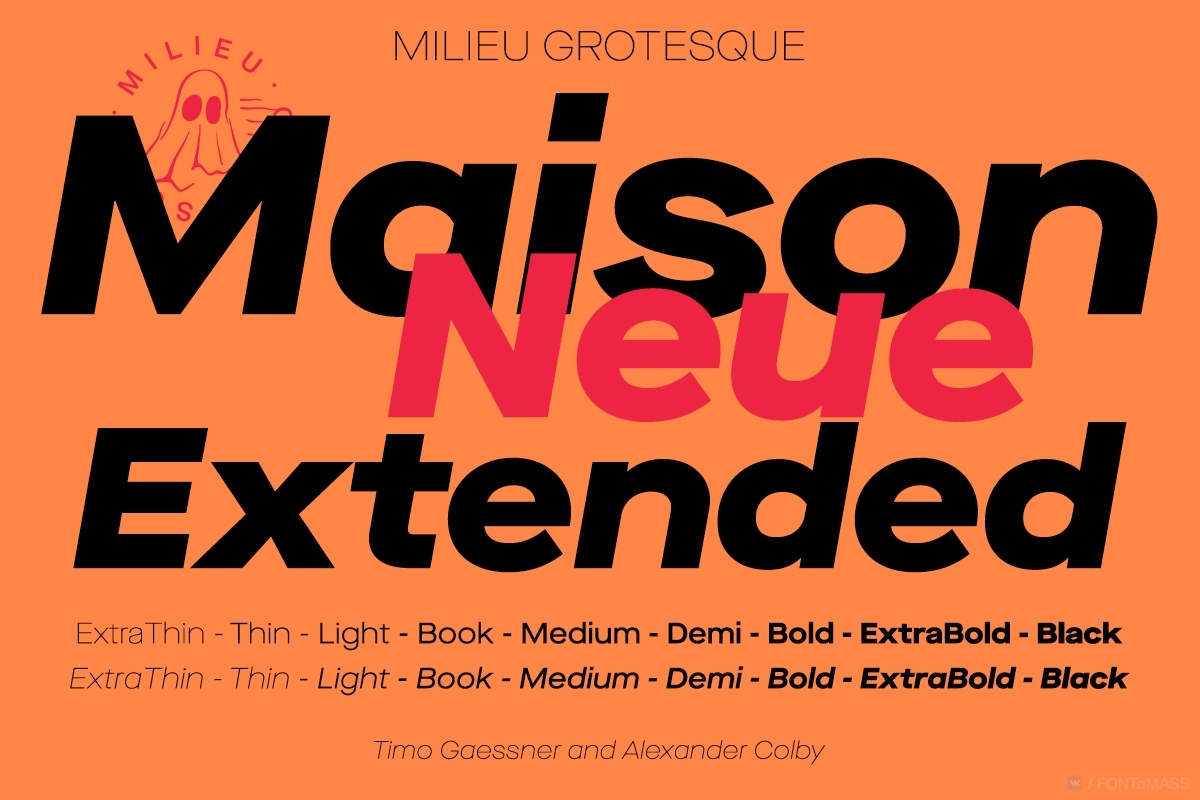
Maison Neue Extended Font
Maison Neue Extended Font is ideal for architectural signage, contemporary advertising campaigns, large-format posters, modern billboard designs, corporate headquarters displays, urban wayfinding systems, trade show graphics, stadium displays, transportation hubs, and high-impact digital billboards.
What makes Maison Neue Extended Font exciting is its bold horizontal expansion that maximizes visual impact while maintaining the refined geometric principles of contemporary design. This commanding typeface features widened proportions and enhanced presence that demands attention in large-scale applications while preserving exceptional legibility at distance.
Maison Neue Extended Font family includes multiple weights from light to black with matching italics and comprehensive character coverage, providing designers with powerful tools for creating impactful brand communications and large-scale environmental graphics.
Maison Neue Extended Font embodies modern architectural thinking with its expanded character width and sophisticated proportional system that creates maximum visual presence without sacrificing readability. This versatile typeface successfully combines contemporary aesthetics with functional performance, making it perfect for brands requiring commanding presence in competitive visual environments.
The extensive glyph collection includes uppercase and lowercase letters, comprehensive numerals, punctuation marks, and international symbols supporting global advertising campaigns. Maison Neue Extended Font provides advanced OpenType features with stylistic alternates for enhanced creative flexibility.
Maison Neue Extended Font excels in both digital displays and large-format printing applications, maintaining its commanding presence whether featured on LED screens, printed on vinyl banners, or displayed in architectural environments. The font's robust construction ensures consistent visual impact.
Environmental designers and advertising professionals appreciate how Maison Neue Extended Font creates immediate visual hierarchy while maintaining sophisticated brand expression. Its distinctive expanded proportions help brands achieve maximum visibility without compromising contemporary aesthetic standards.
Whether you're designing large-scale advertising campaigns, creating architectural wayfinding systems, or developing high-impact digital displays, Maison Neue Extended Font provides the commanding presence and contemporary sophistication essential for maximum visual impact.